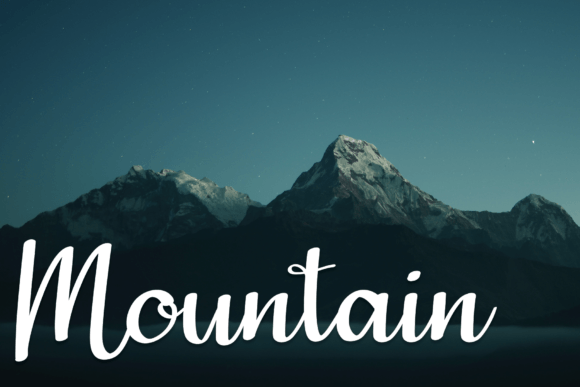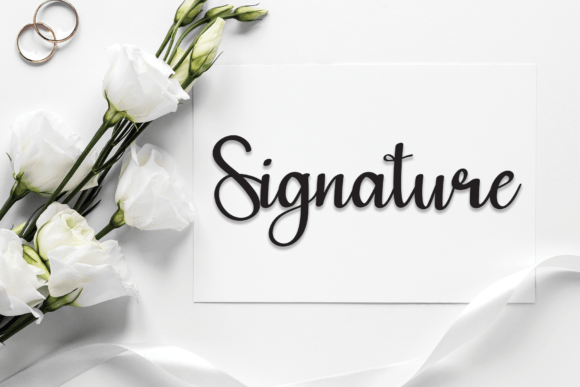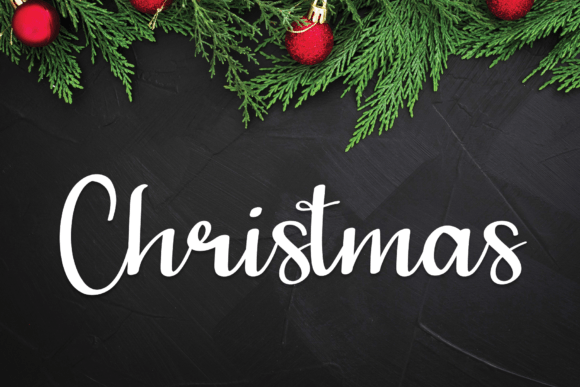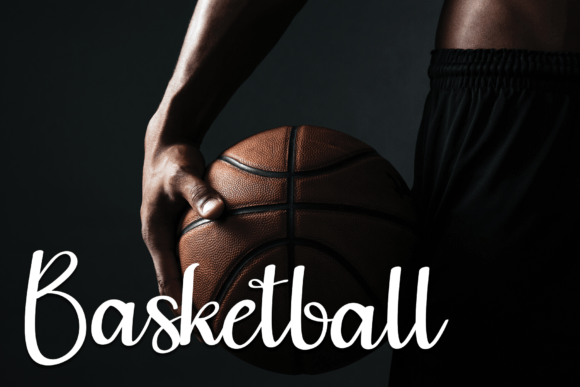
Introducing Birthday Font: The Ultimate Celebration Companion
Are you tired of using the same old fonts for your crafts, digital designs, and greeting cards? Look no further! Meet Birthday Font, a fun and friendly handwritten font that’s sure to bring a smile to your face and make your designs stand out. In this article, we’ll dive into the world of Birthday Font and explore its features, uses, and benefits for designers and crafters.
A Font for Every Occasion
Birthday Font is more than just a font – it’s a celebration companion. Whether you’re creating digital designs, crafting handmade cards, or designing presentations, this font is perfect for any occasion that calls for a personal touch. Its friendly and approachable vibe makes it ideal for:
- Crafts: Add a personal touch to your DIY projects, such as handmade cards, scrapbooking, and journaling.
- Digital design: Use Birthday Font to create engaging social media graphics, blog posts, and website headers.
- Presentations: Make your presentations more engaging and fun with this playful font.
- Greeting cards: Create one-of-a-kind birthday cards, invitations, and thank-you notes that will make your loved ones feel special.
What Makes Birthday Font Special?
So, what sets Birthday Font apart from other fonts? Here are a few features that make it a standout:
- Handwritten charm: Birthday Font has a warm, handwritten feel that’s perfect for creating personal and intimate designs.
- Fun and playful: This font is designed to bring a smile to your face and make your designs more engaging.
- Versatile: Use Birthday Font for a wide range of projects, from digital designs to handmade crafts.
- Easy to read: Despite its playful nature, Birthday Font is easy to read, making it perfect for body text and headlines.
Tips for Using Birthday Font
Why Designers and Crafters Love Birthday Font
So, why do designers and crafters love Birthday Font? Here are a few reasons:
- It’s fun and engaging: Birthday Font adds a playful touch to any design, making it perfect for projects that require a bit of whimsy.
- It’s versatile: Use Birthday Font for a wide range of projects, from digital designs to handmade crafts.
- It’s perfect for celebrations: Whether you’re creating birthday cards, invitations, or party decorations, Birthday Font is the perfect choice.